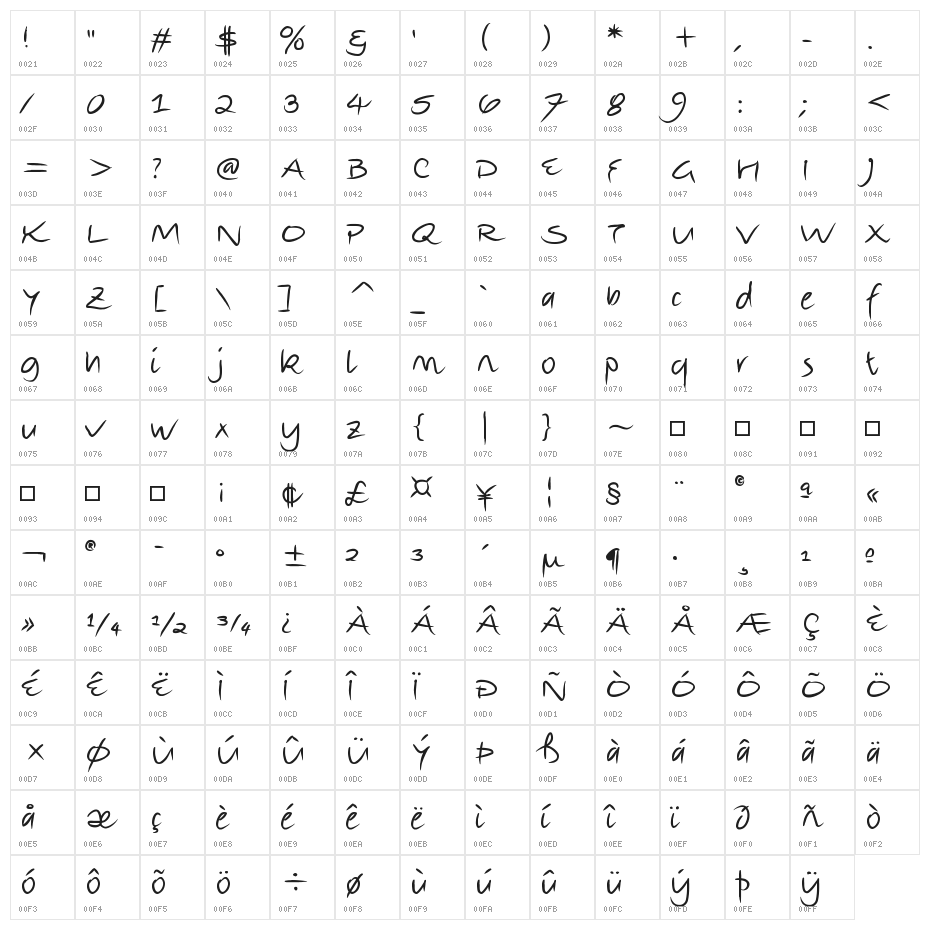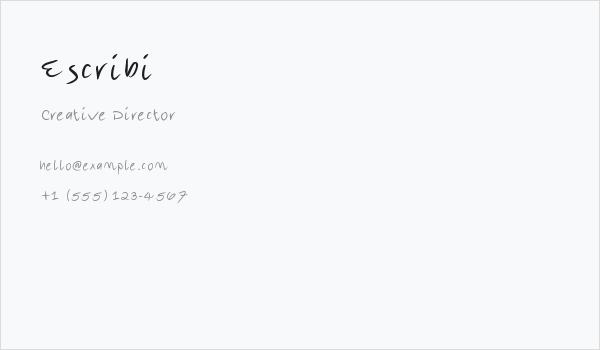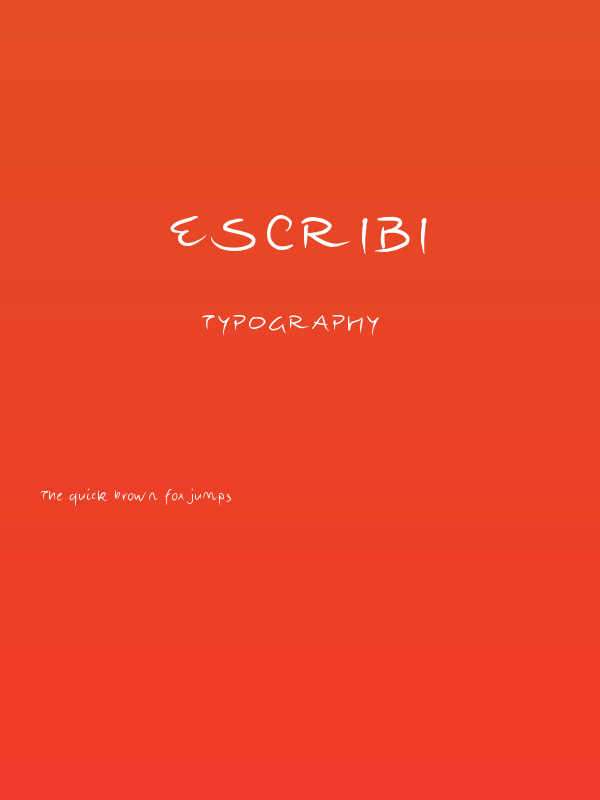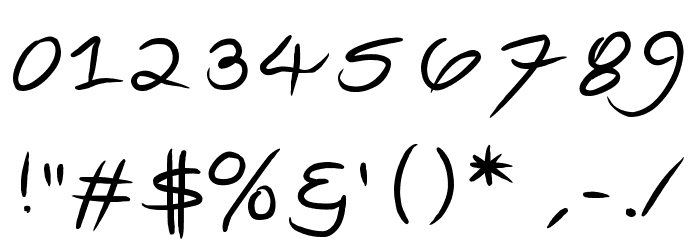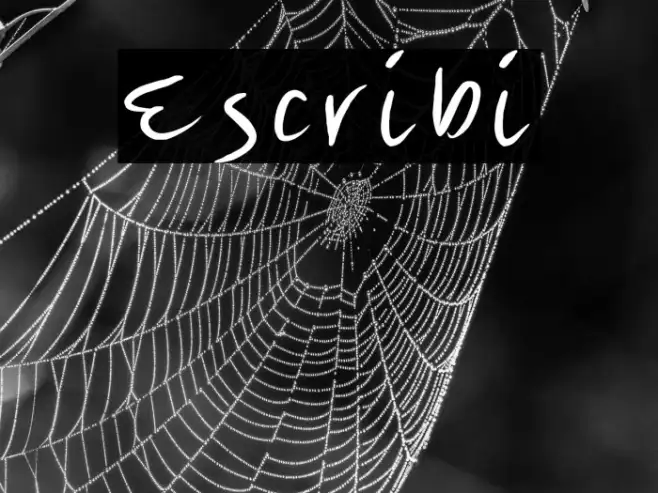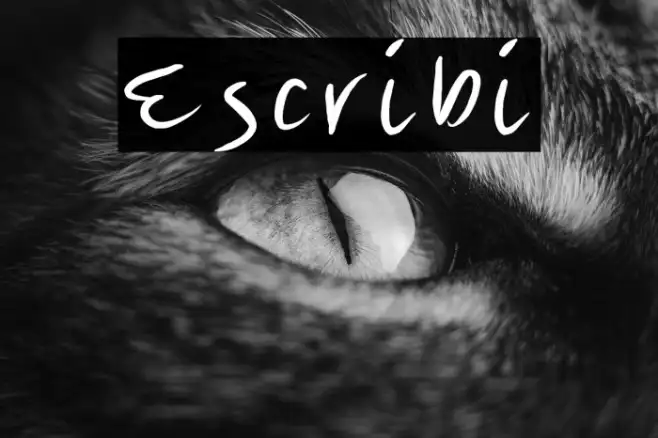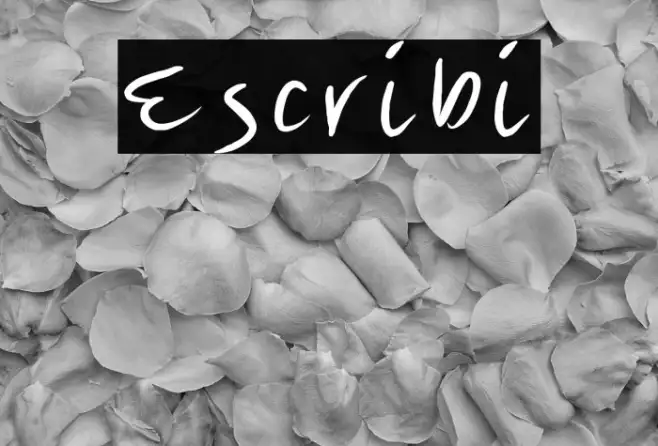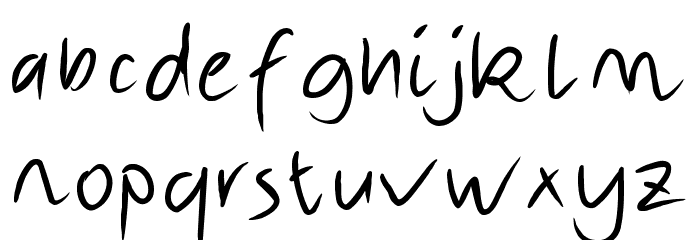
Escribi Font
Escribi Description
This font features a dynamic and fluid handwritten style, characterized by its smooth, flowing strokes and slightly irregular letterforms that mimic natural handwriting. The uppercase letters exhibit a graceful elegance, while the lowercase letters maintain a consistent rhythm, enhancing readability. The numerals are distinct and well-proportioned, complementing the overall aesthetic. Special characters are thoughtfully designed, maintaining the font's cohesive look. This font exudes a casual yet sophisticated charm, making it versatile for various design applications.
| Proposed Projects | Ideal for personal branding, invitations, greeting cards, and creative projects that require a personal touch. |